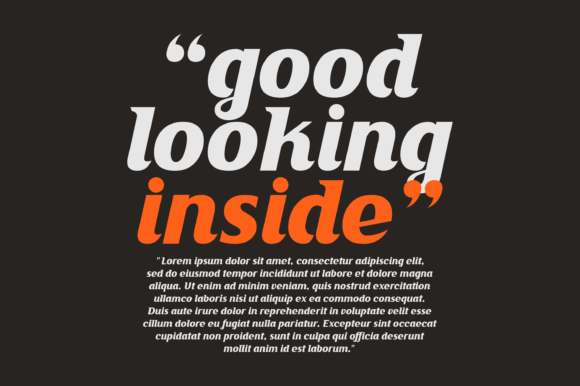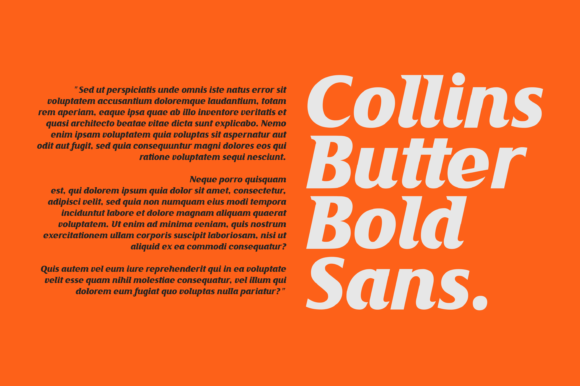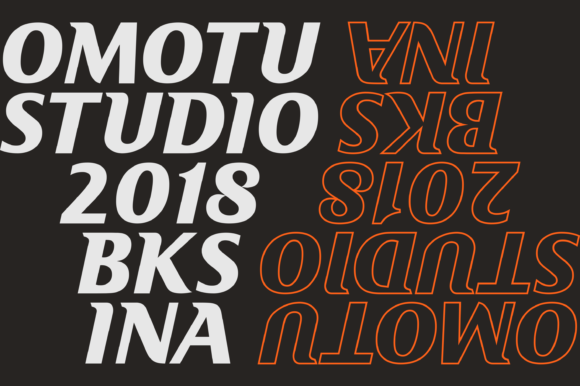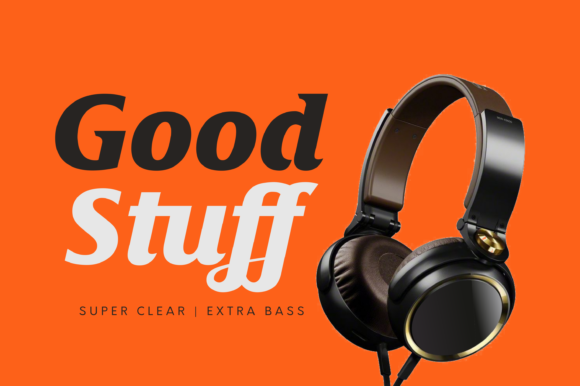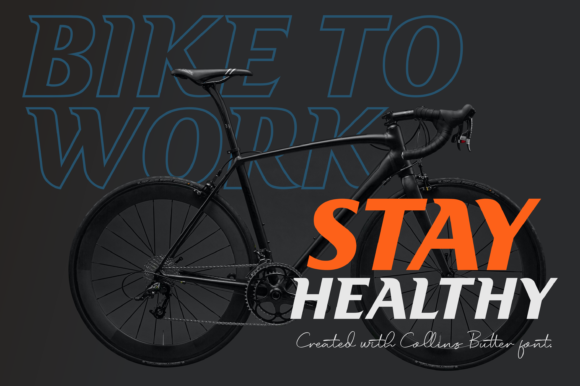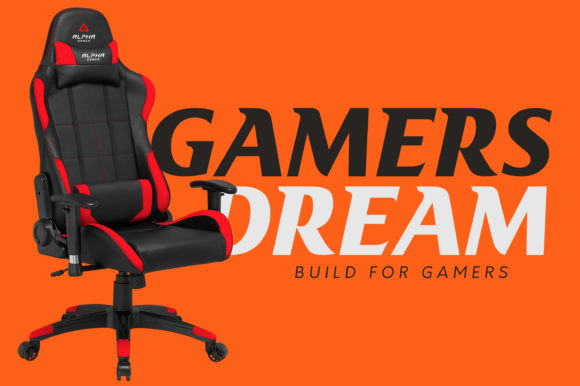
Introducing Collins Butter Font: Elevate Your Designs with Bold Flair
Are you on the hunt for a font that can add a touch of sophistication and boldness to your designs? Look no further than the Collins Butter Font. This stunning display font is designed to make your next project stand out from the crowd, with its unique blend of solid and hollow font families.
What is Collins Butter Font?
Collins Butter is a bold display font that comes with 2 font families: solid and hollow. This versatile font is perfect for a wide range of design applications, including logotype, branding, packaging design, poster design, website/display, editorial, headline, and more. Whether you’re a designer, crafty DIY enthusiast, or simply someone who loves to dabble in creative projects, Collins Butter Font is sure to become a favorite in your toolkit.
Key Features of Collins Butter Font
- 2 Font Families: The Collins Butter Font comes with two distinct font families: solid and hollow. This allows you to experiment with different styles and add depth to your designs.
- High Versatility: Collins Butter Font can be used for a wide range of design applications, from branding and packaging to posters and editorial projects.
- Bold and Eye-Catching: This font is designed to make a statement. Its bold and eye-catching style is sure to grab attention and leave a lasting impression.
- Branding and Logotype: Use Collins Butter Font to create a bold and memorable logo for your brand. The font’s unique style is sure to help your business stand out.
- Packaging Design: Add a touch of sophistication to your packaging designs with Collins Butter Font. The font’s hollow and solid styles can be used to create eye-catching labels and packaging materials.
- Poster Design: Create stunning posters with Collins Butter Font. The font’s bold style is perfect for headlines and titles, while the hollow style can be used for added visual interest.
- Editorial and Headlines: Use Collins Butter Font to add a touch of glamour to your editorial projects. The font’s bold style is perfect for headlines, while the hollow style can be used for subheadings and accents.
- Experiment with Different Styles: Don’t be afraid to experiment with different styles and combinations of the solid and hollow font families.
In conclusion, Collins Butter Font is a bold and versatile display font that is perfect for designers and crafty DIY enthusiasts. With its two font families, PUA encoding, and high versatility, this font is sure to become a staple in your design toolkit. Whether you’re working on a branding project, packaging design, or simply want to add a touch of sophistication to your creative projects, Collins Butter Font is the perfect choice.